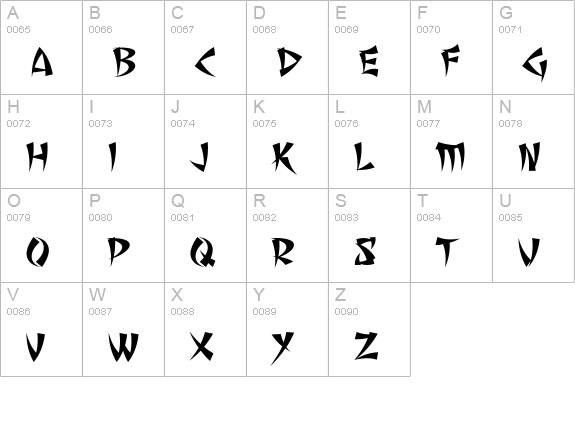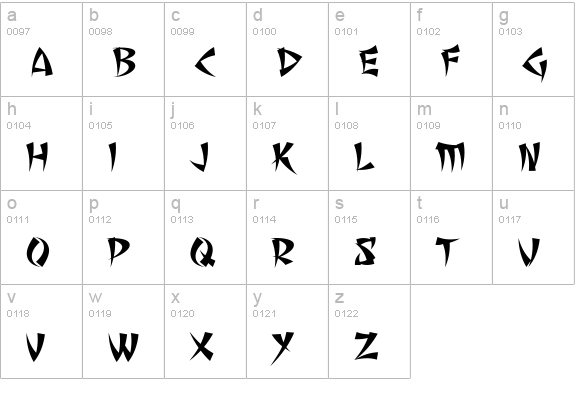
Seven Monkey Fury BB is a playful and energetic font that will add a burst of excitement to any design project. With its bold and charismatic letterforms, this font is perfect for capturing attention and making a statement. Whether you're designing a flyer, a logo, or a poster, Seven Monkey Fury BB will bring a sense of fun and liveliness to your work. This font is not only visually captivating but also versatile. It can be used for both headlines and body text, allowing you to create cohesive and dynamic designs. The letters are carefully crafted with a combination of smooth curves and sharp edges, giving them a unique and eye-catching appeal. One of the best things about Seven Monkey Fury BB is that it is available for free! You can easily download this font at FontsMarket.com, where it is offered as a freely available resource for designers and creatives. This means that you can use Seven Monkey Fury BB in your personal and commercial projects without any restrictions. Whether you're a professional designer or just starting out, Seven Monkey Fury BB is a must-have font in your collection. Its bold and vibrant nature will bring a sense of energy and playfulness to your designs, making them stand out from the crowd. So why wait? Download Seven Monkey Fury BB today and unleash your creativity!